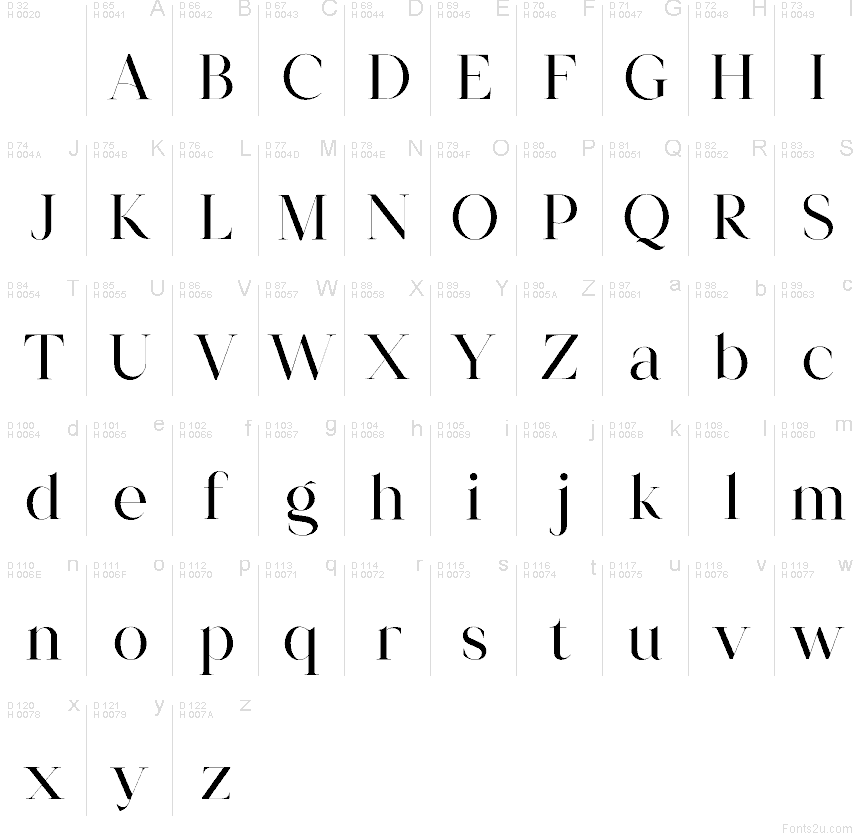
Morlique Regular
Morlique font by VPcreativeshop is a free serif typeface that thrives on drama and poise. Ultra-fine strokes slice into inky, weighty sections, giving each letter a tailored, runway-ready presence. The spacing feels considered and airy, so even a single word set in Morlique carries the cool, expensive hush of a boutique storefront or perfume label.
Using Morlique, headlines feel like statement pieces rather than plain text. This free font shines on luxury branding, fashion editorials, packaging, magazine covers, wedding suites, and bold social media graphics. Set it large to let those razor-sharp details breathe, and pair it with a clean sans serif for body copy to keep the overall look sharp, modern, and effortlessly refined.